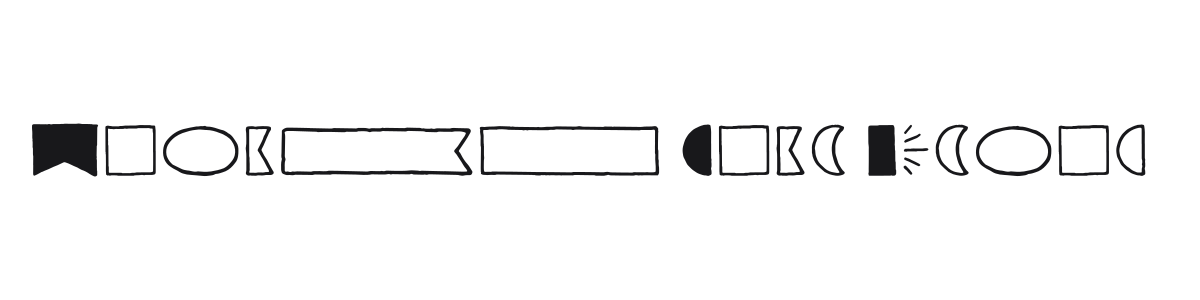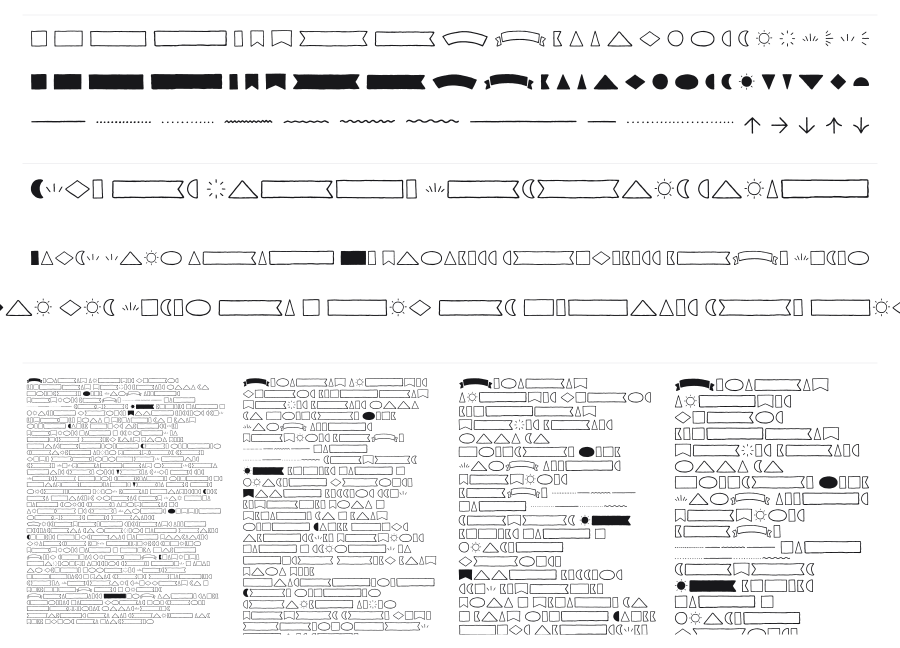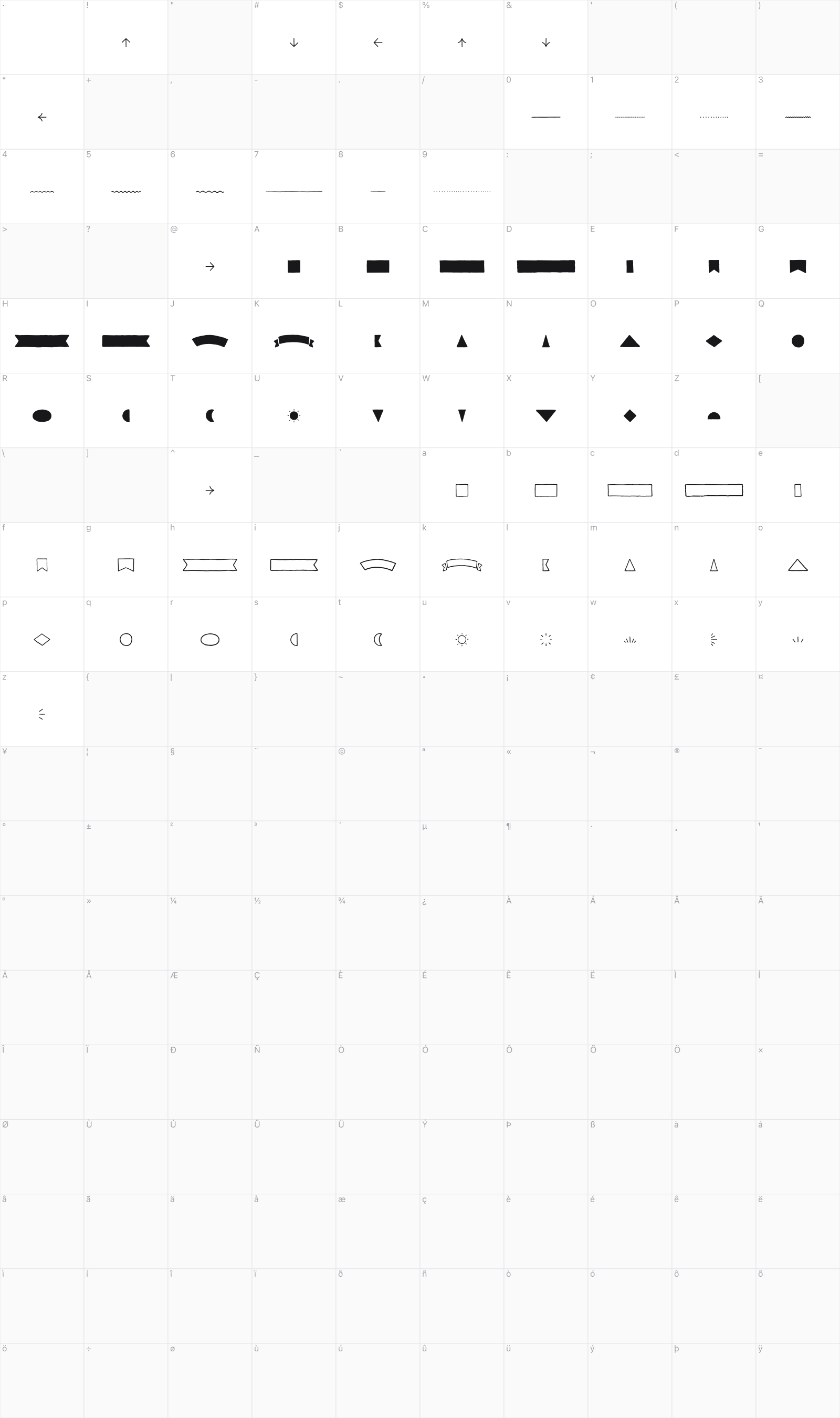
Garlic Salt Extras
Garlic Salt Extras is the companion dingbat set to the Garlic Salt hand-drawn serif family. It contains a collection of sketchy geometric shapes, decorative banners, ribbons, and celestial symbols drawn with the same monolinear, textured pen stroke that defines the family. Drop these into layouts alongside the main typeface to build cohesive illustrated compositions without opening a drawing app.